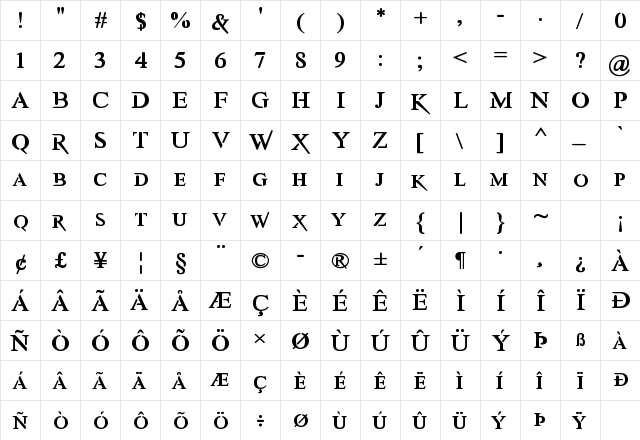
Awery SmallCaps Regular
Design Context for Awery SmallCaps Typeface
Awery SmallCaps is a composed and adaptable typeface that performs quietly and consistently across a wide range of design contexts.